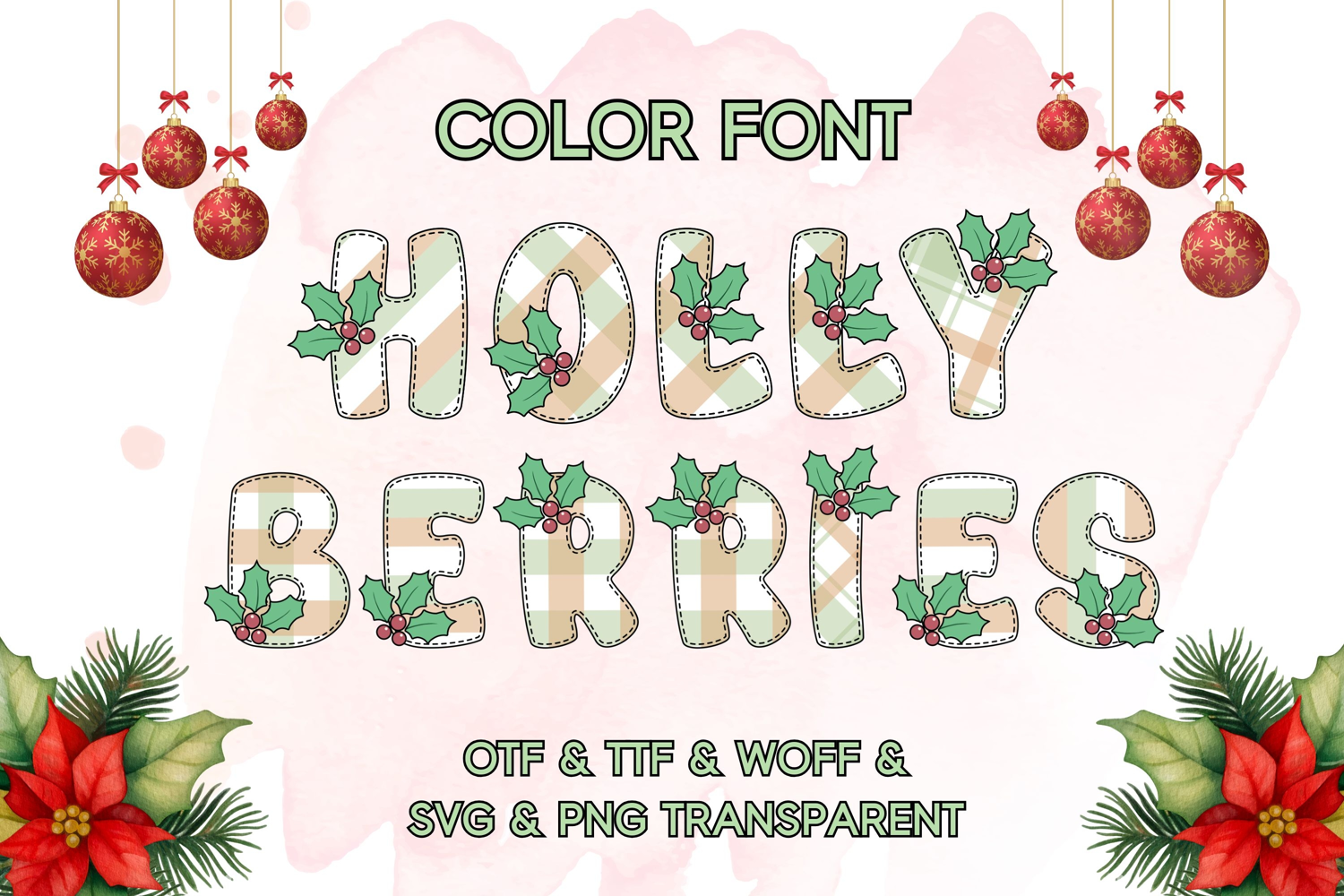
Holly Berries - Color font
Introducing Holly Berries, a vivid and playful color font that brings a touch of enchantment to every Christmas-themed design. Its captivating character effortlessly melds with t-shirt designs, digital imprints, craft creations, decorative cards, and extensive projects.